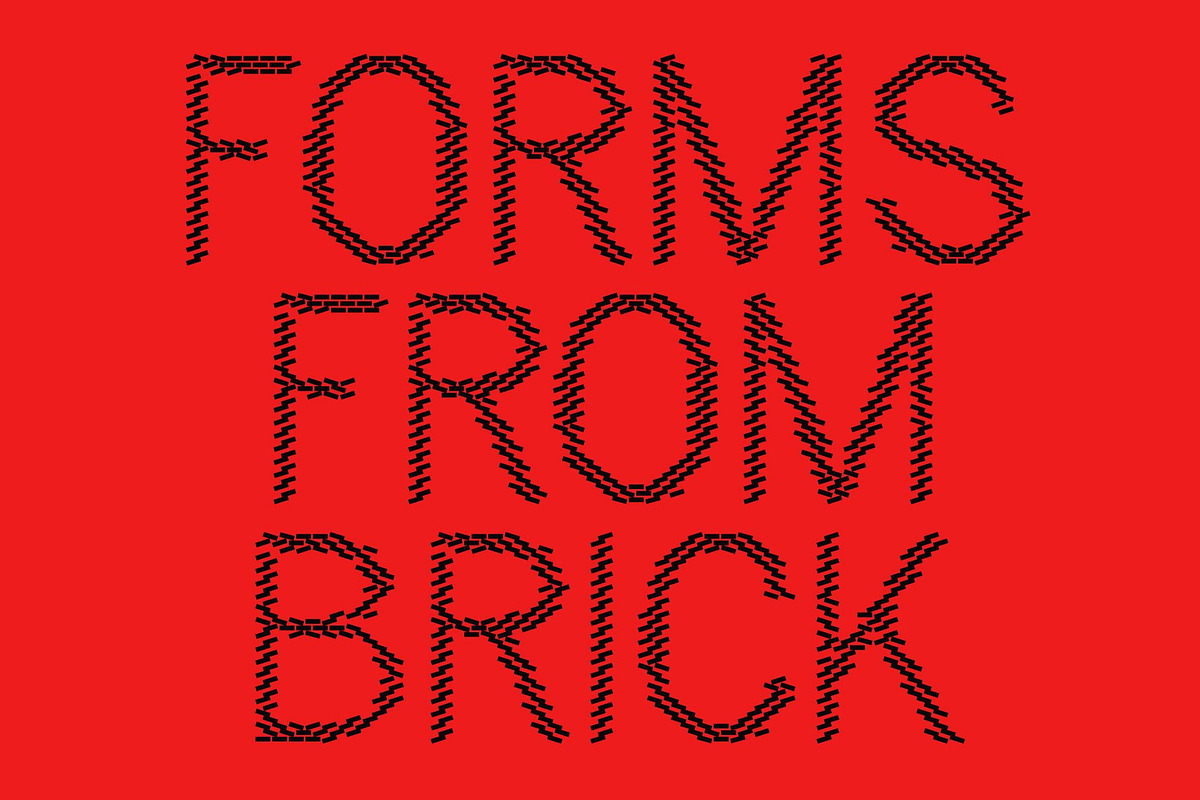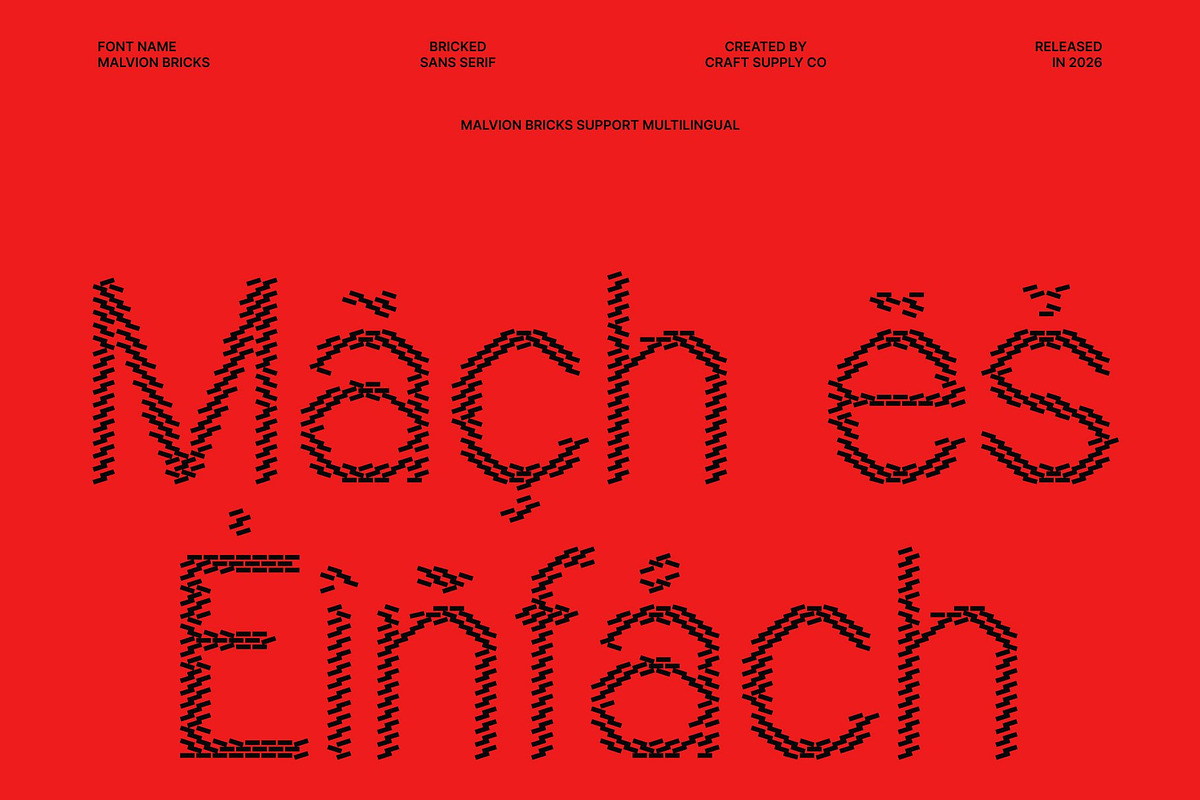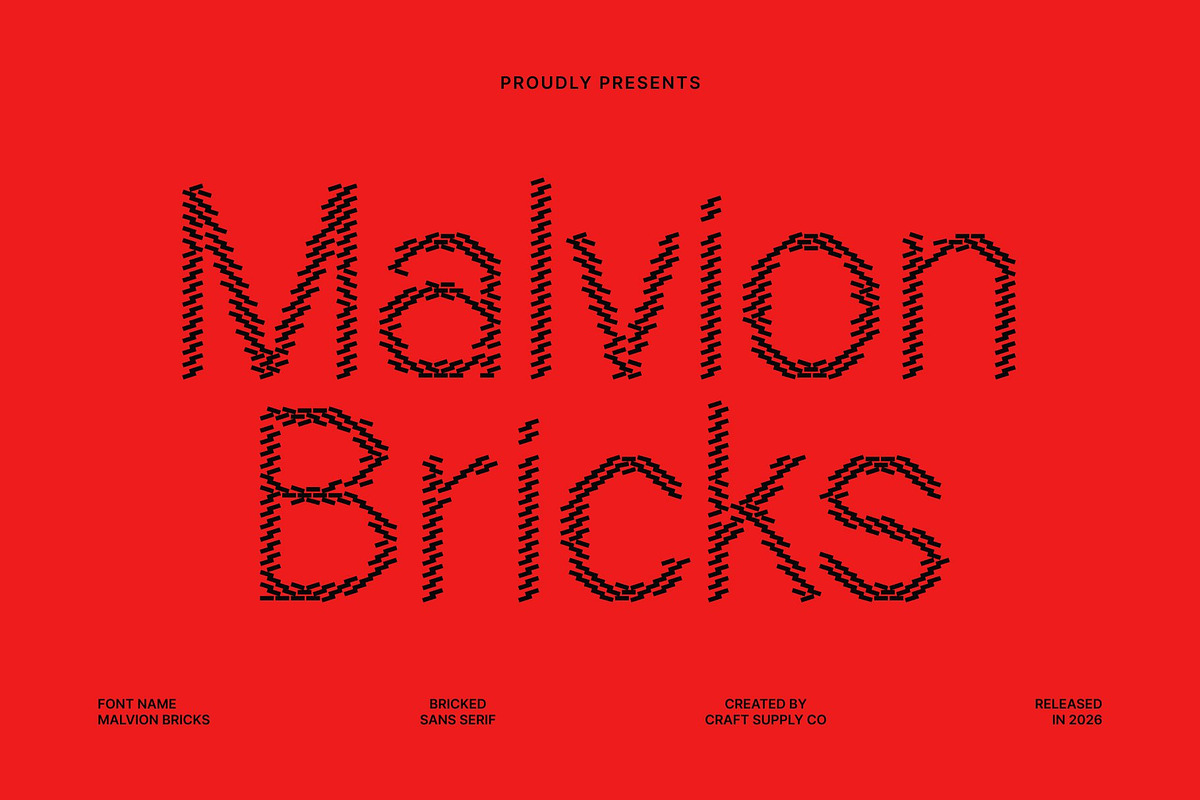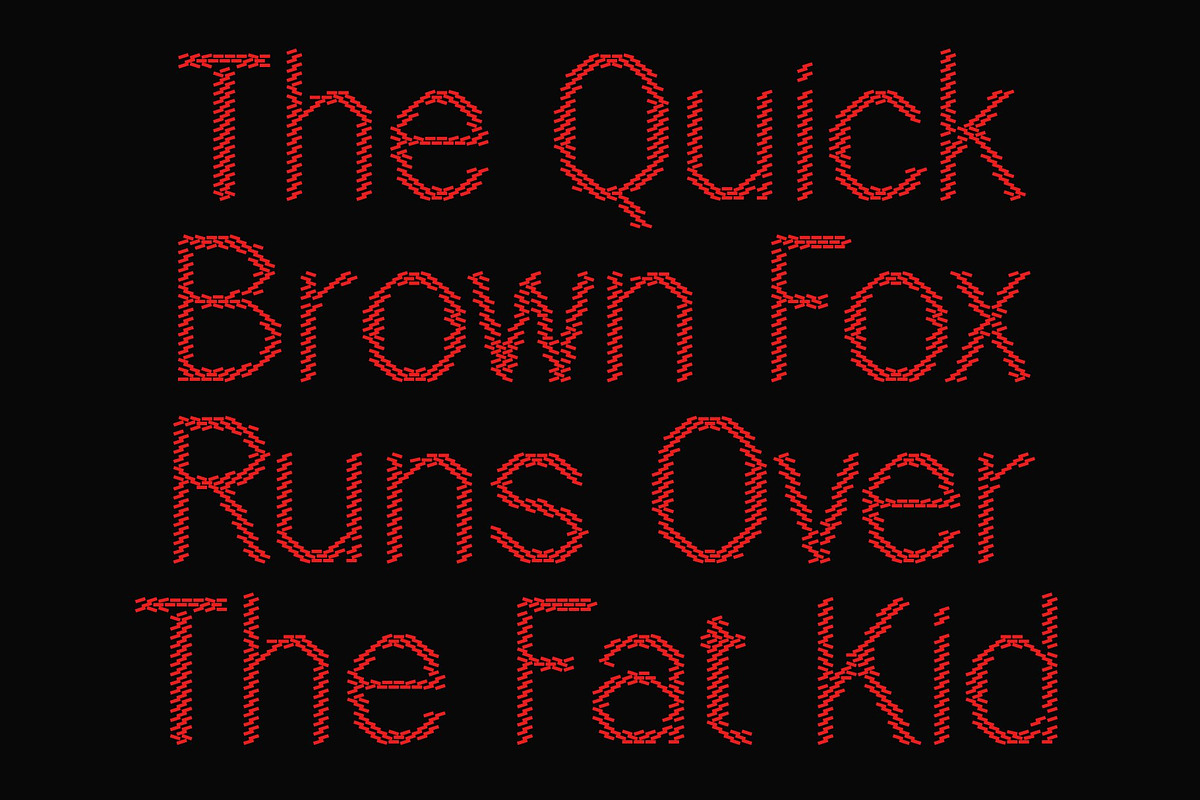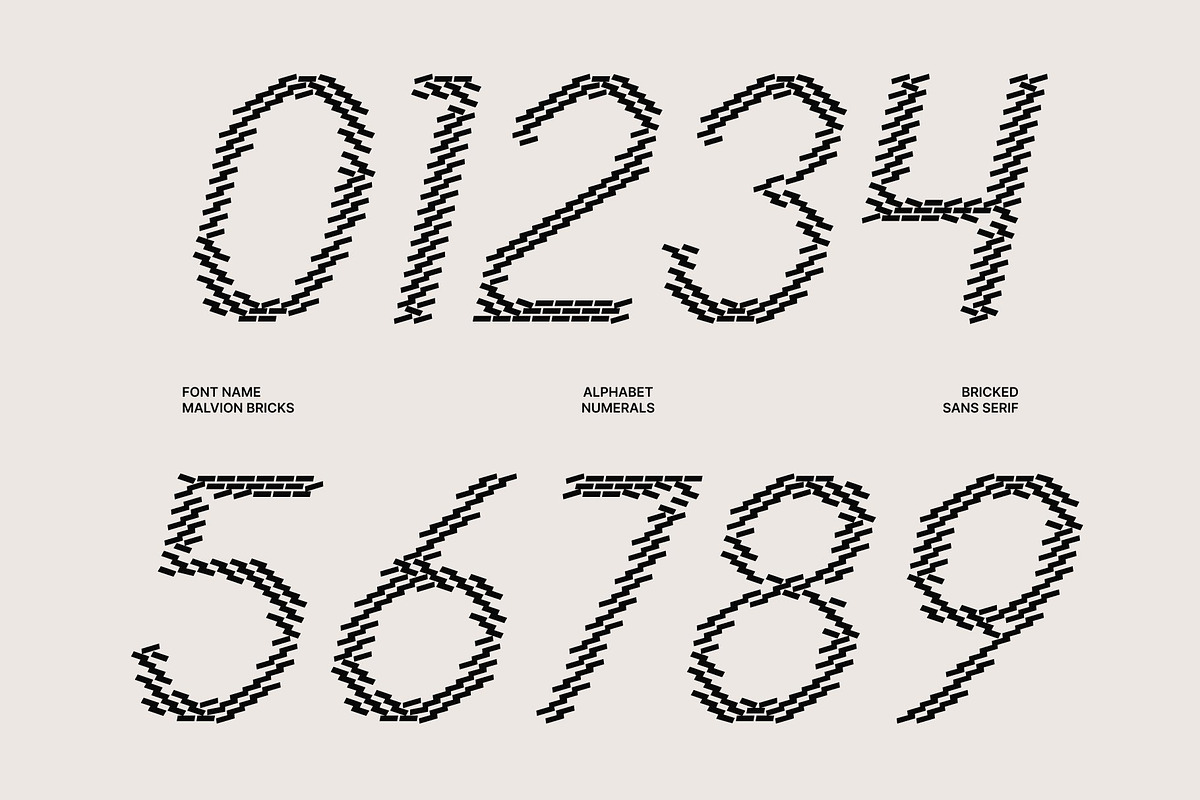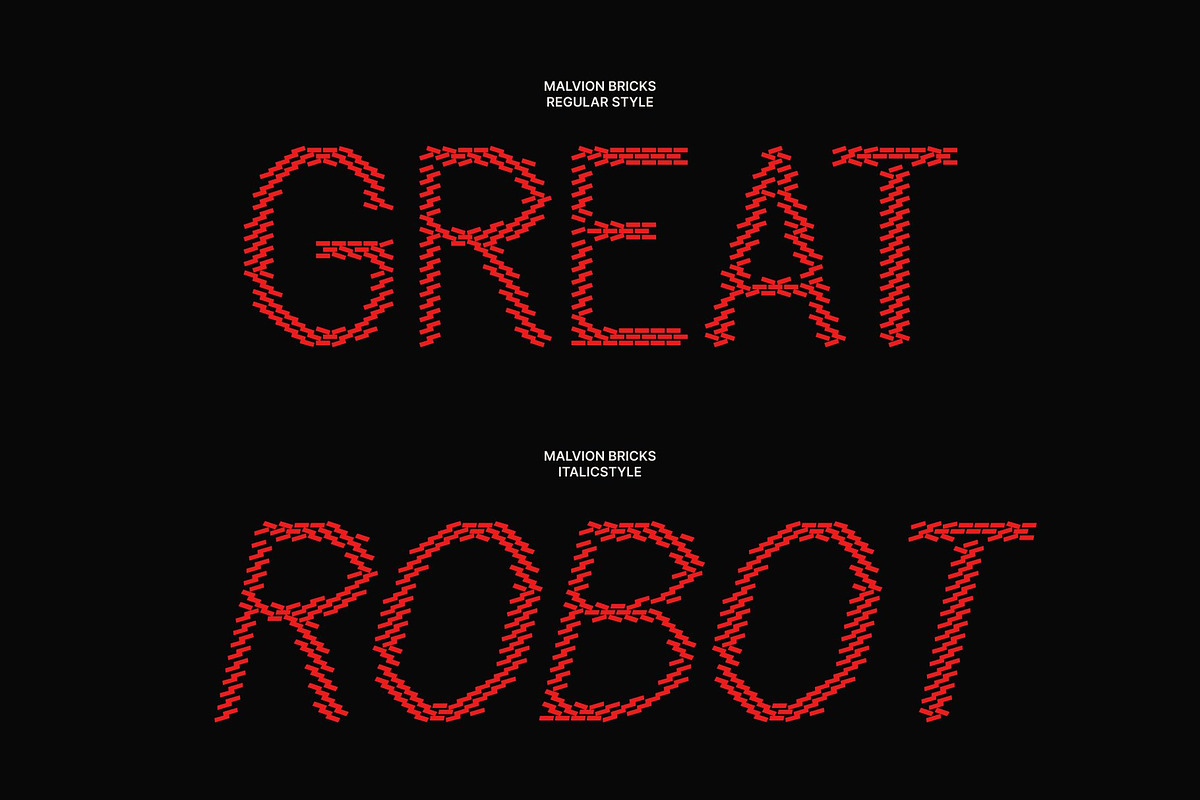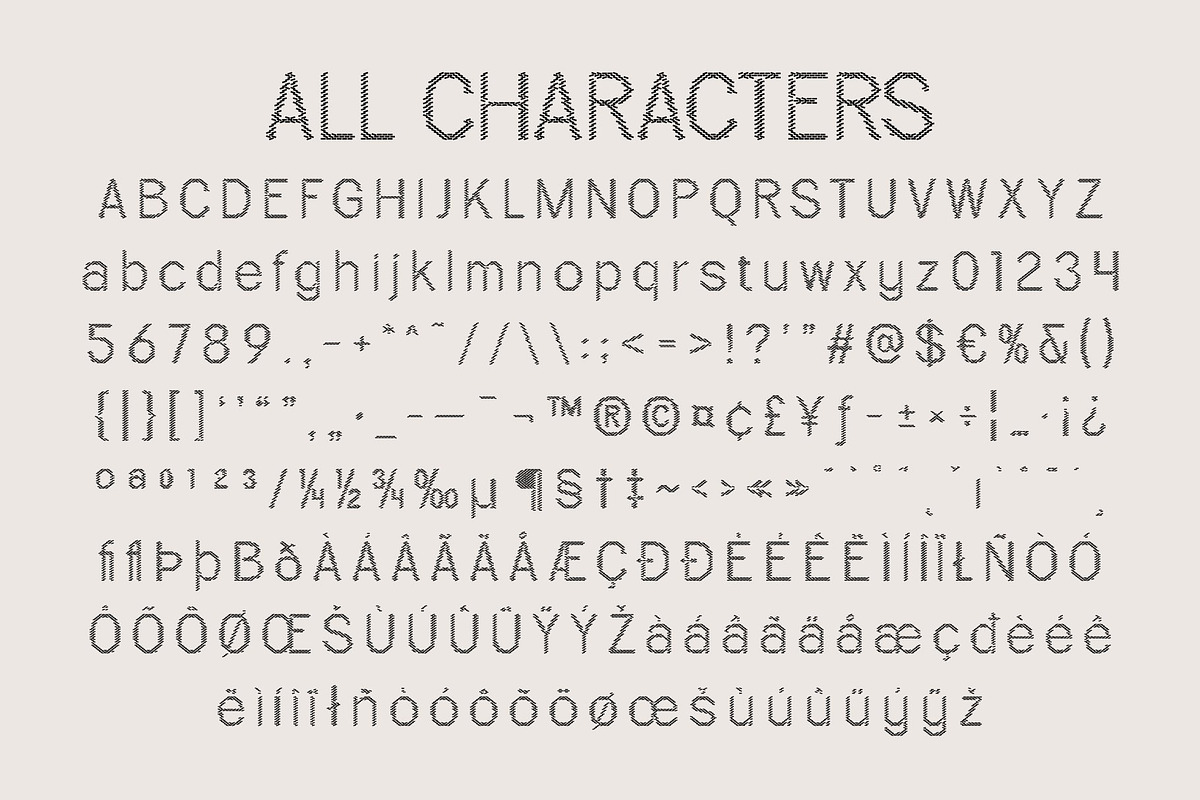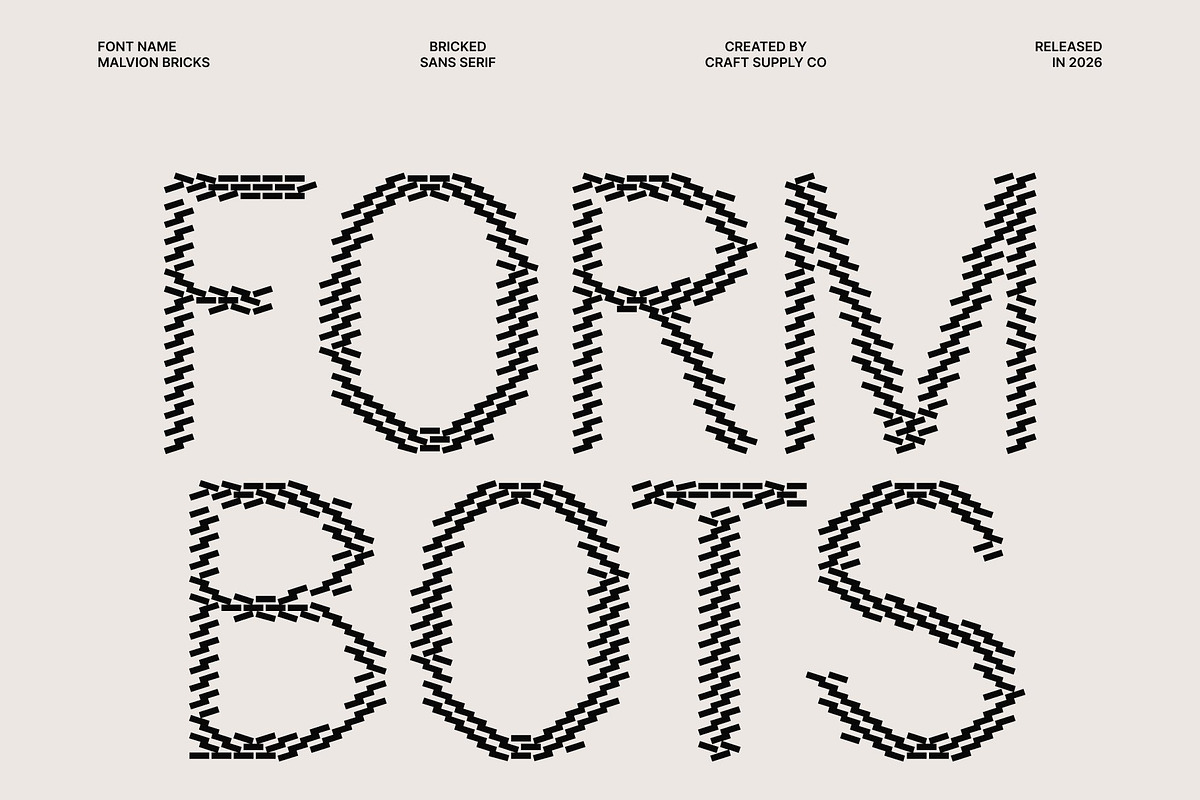
Malvion Bricks
Malvion Bricks – Modern Sans Serif Font: Where Inktrap Precision Meets Decorative Brick Texture
Sharp Inktrap Forms with Contemporary Urban Energy This is a modern sans serif font designed with distinctive inktrap features, showcasing small angular details at the ends of each letter stroke. These refined cuts create a sharp, modern appearance filled with precision, clarity, and contemporary style. Its clean geometric structure gives the font a professional yet expressive personality, making it ideal for impactful display compositions and modern branding.
Brick-Inspired Texture with Rugged Architectural Appeal This font features decorative textures that make each letter appear as if constructed from brick elements. This structured detailing introduces a rugged architectural quality and tactile visual depth while preserving the font’s sleek inktrap foundation. The result is a striking combination of modern technical precision and textured urban character.
Industrial Modernism with Strong Visual Personality This font delivers a typographic identity that feels urban, energetic, and visually distinctive. Its sharp structure and decorative texture create a versatile atmosphere suitable for modern industrial and street-inspired creative projects.
Perfect for Posters, Branding, and Urban Visuals This font perfect for hip-hop and street event posters, construction and property branding, retro arcade games, gym and sports logos, action movie posters, and city or building-themed designs. Its brick-textured forms make it ideal for logos, signage, packaging, apparel graphics, merchandise, and visual identities that seek a bold and characterful modern appearance.
Malvion Bricks Regular
Malvion Bricks Italic